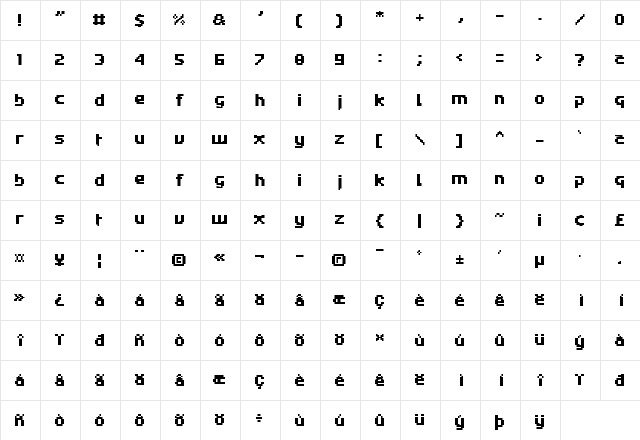
RoadWC98 Regular Free Font
RoadWC98 Regular
Designer: Caveras / Cliff Modes
Design Context for RoadWC98
RoadWC98 is a composed and adaptable typeface that performs quietly and consistently across a wide range of design contexts.
Pro Tip: Use RoadWC98 in both headline and body roles to test its range before committing to a single application.